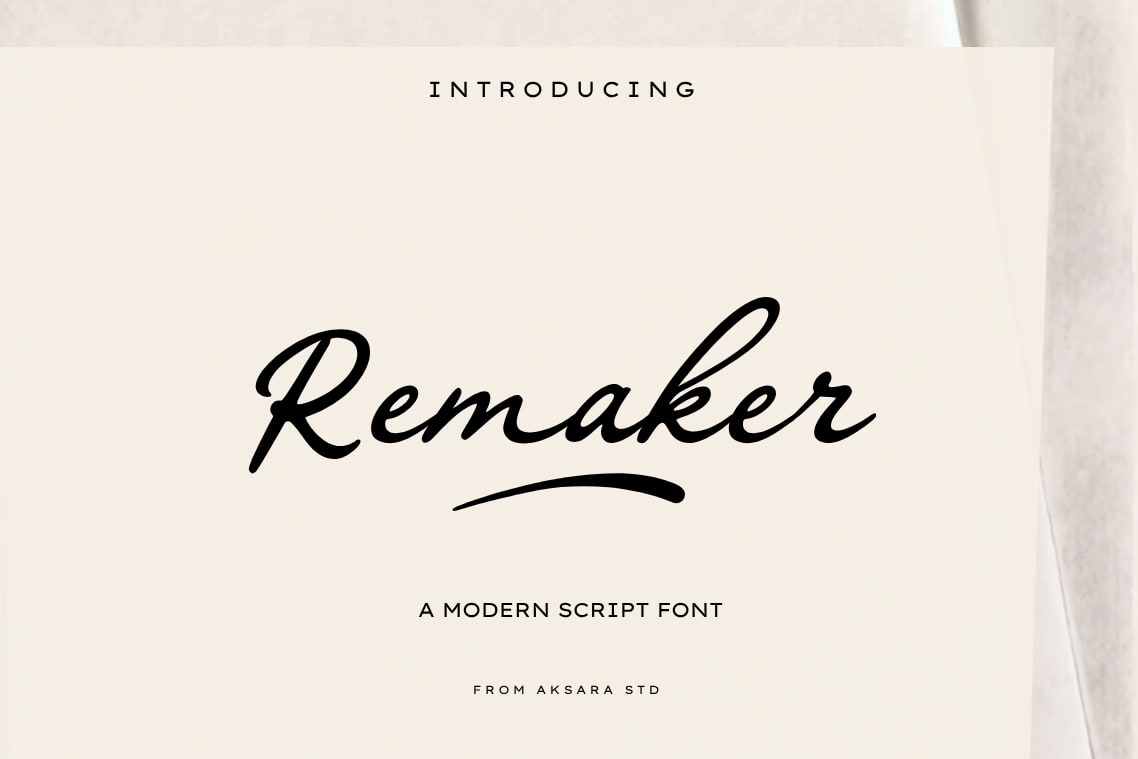
Perfect for logos, branding projects, packaging, social media graphics, merchandise, café identities, lifestyle brands, marketing materials, and modern advertising, Remaker brings personality and flexibility to a wide range of creative work. Its clean handwritten structure helps designs feel authentic and memorable while maintaining excellent readability across print and digital applications.
Alternate Characters
Ligatures & Stylistic Features
Multilingual Support